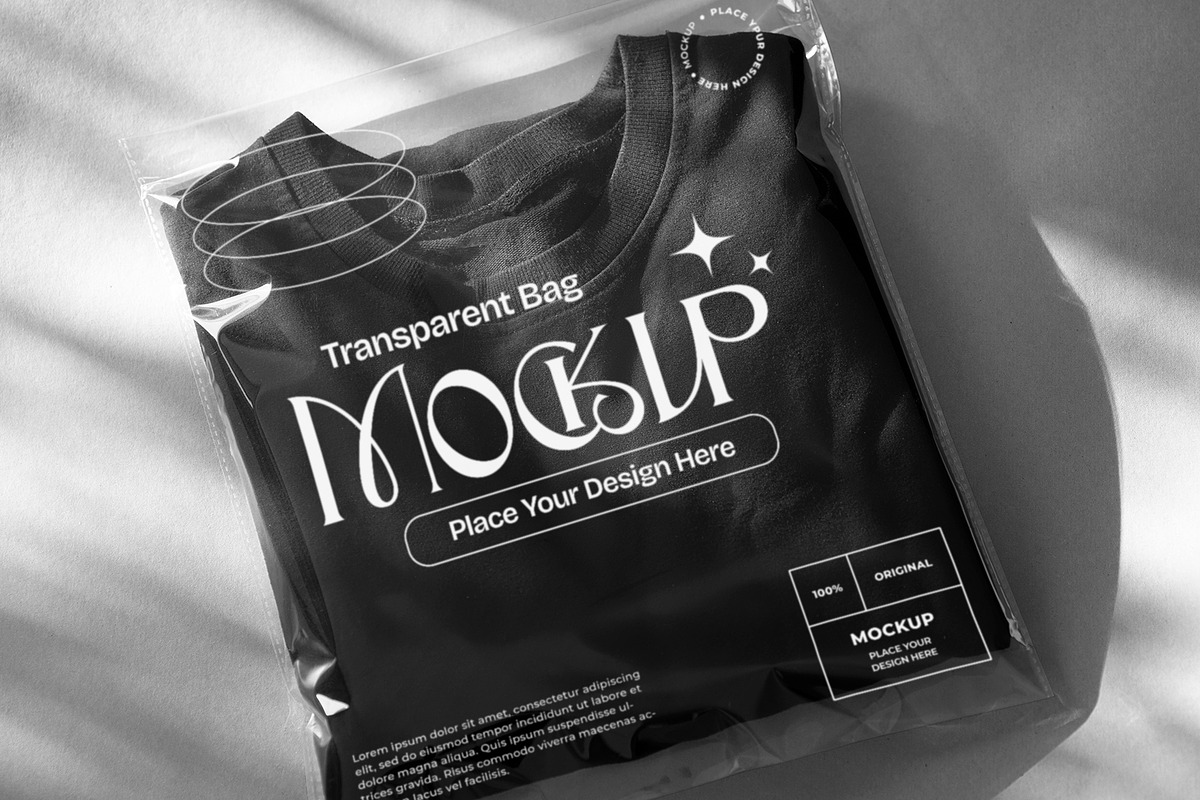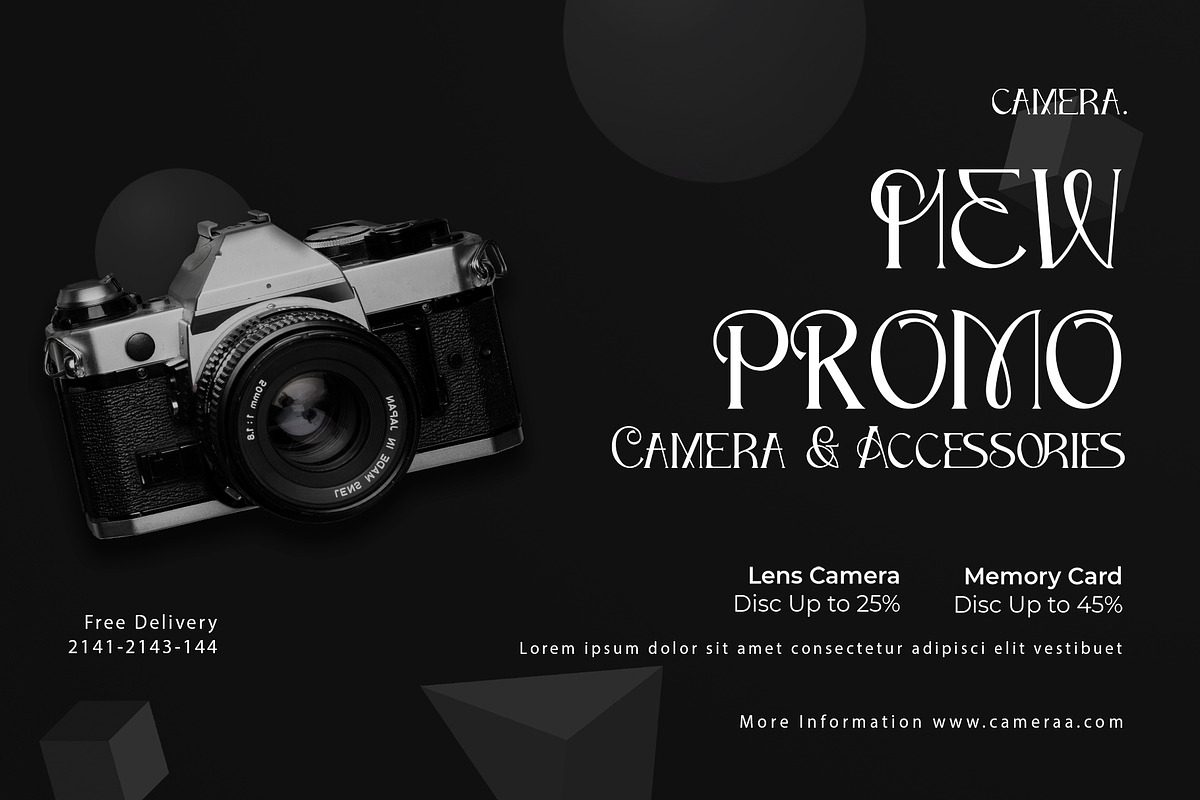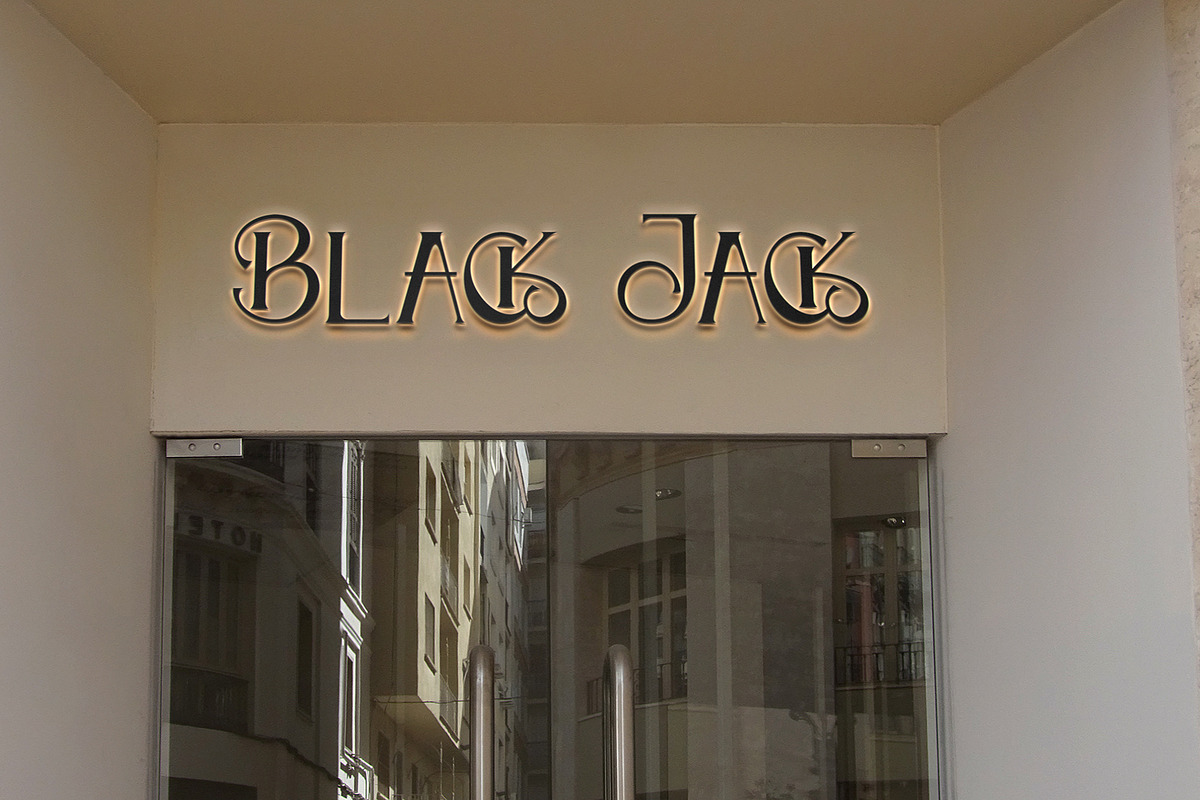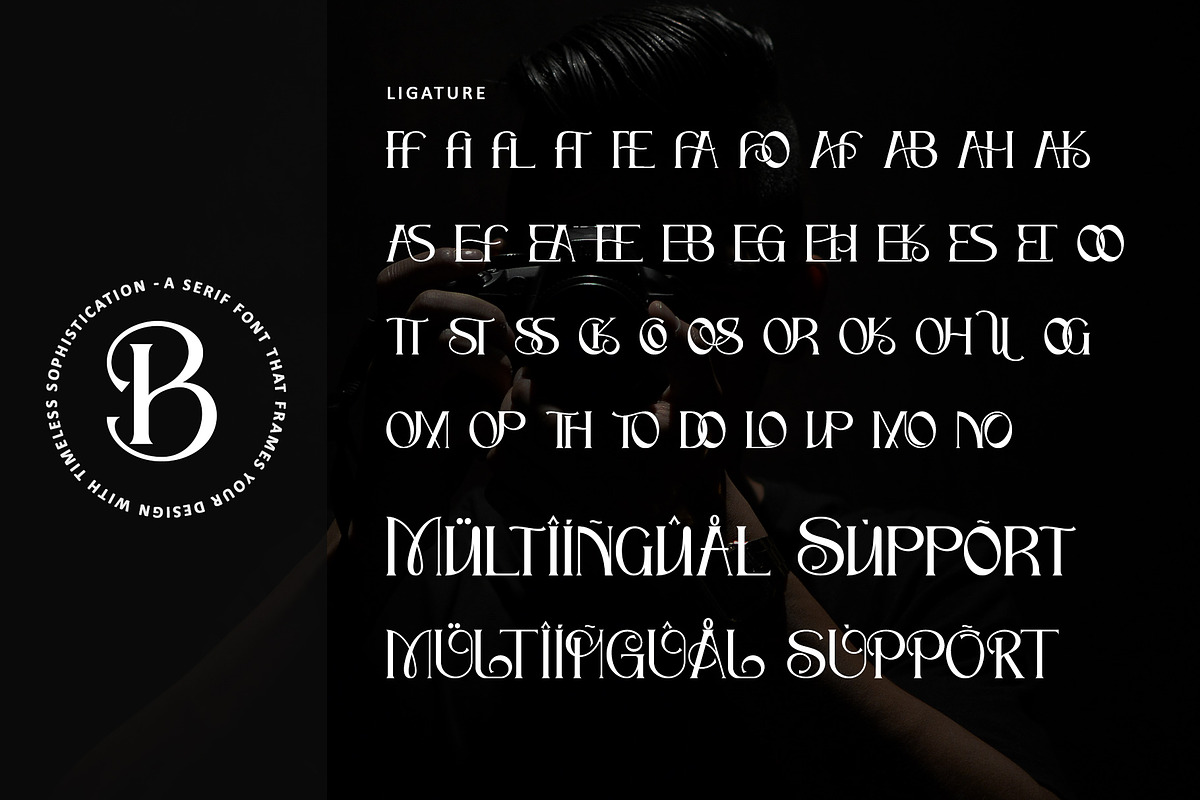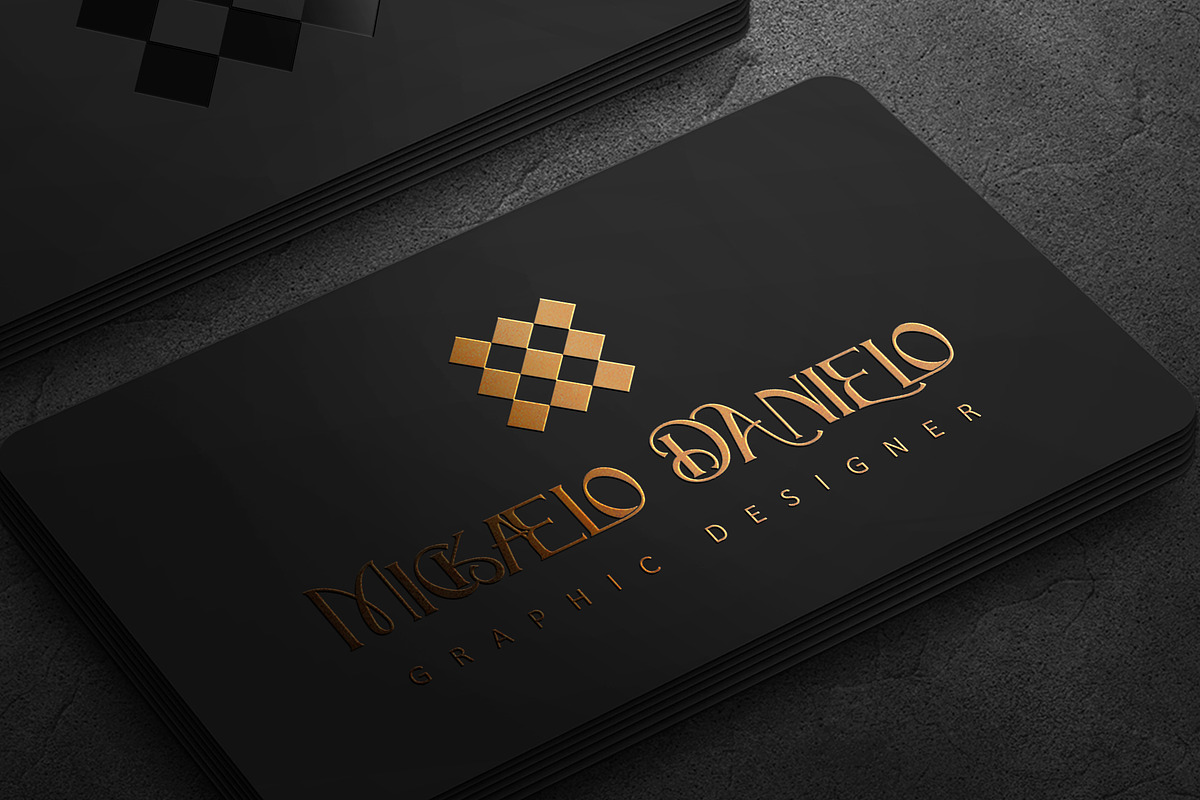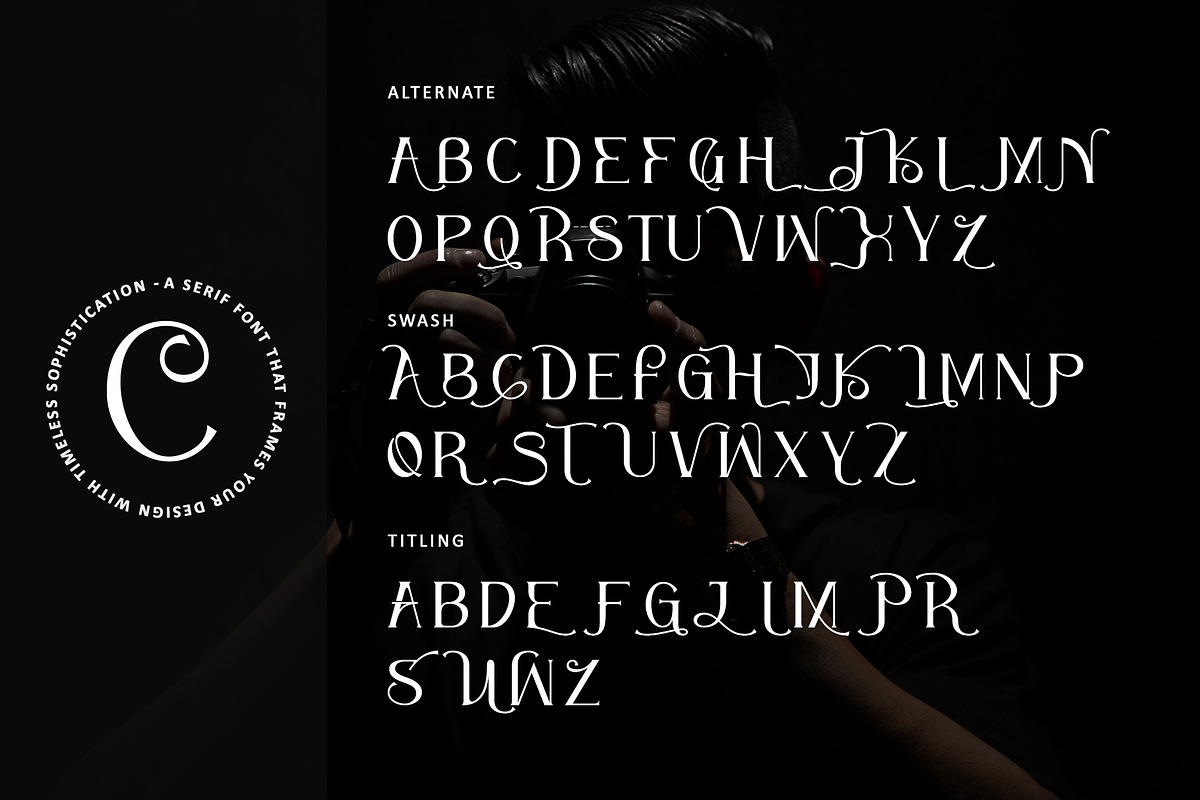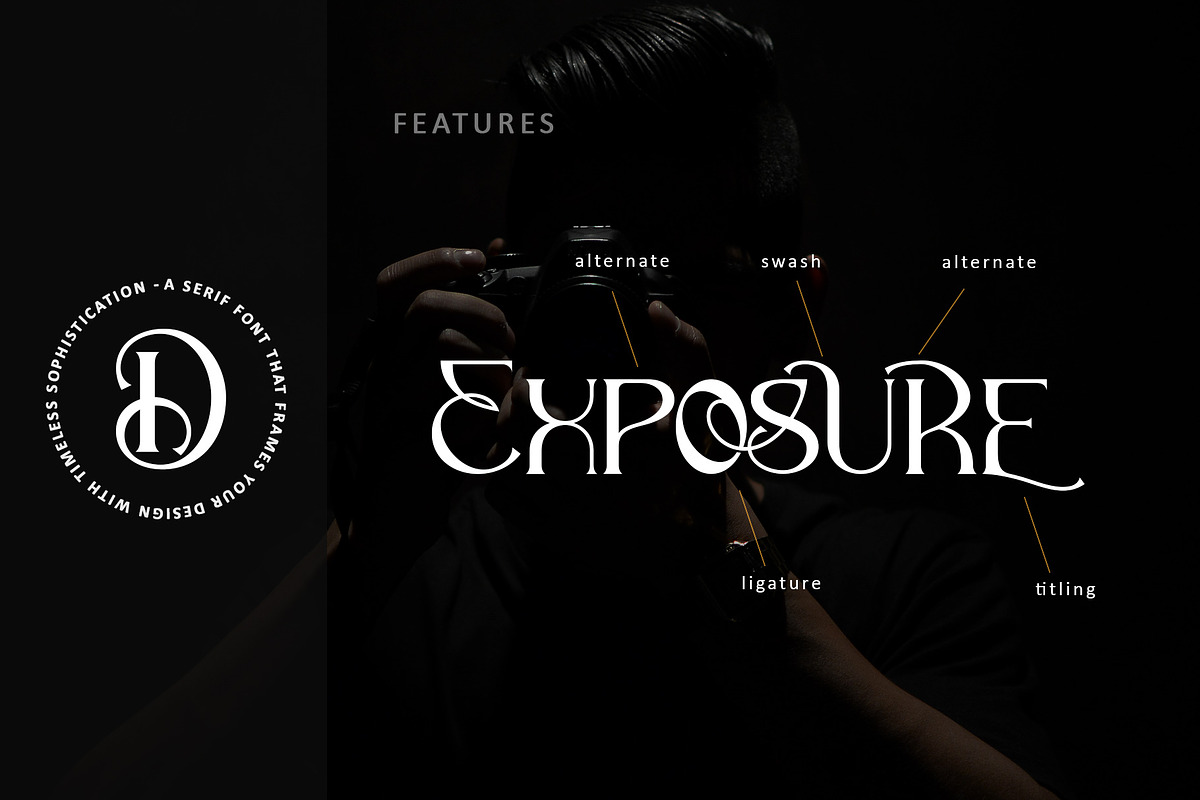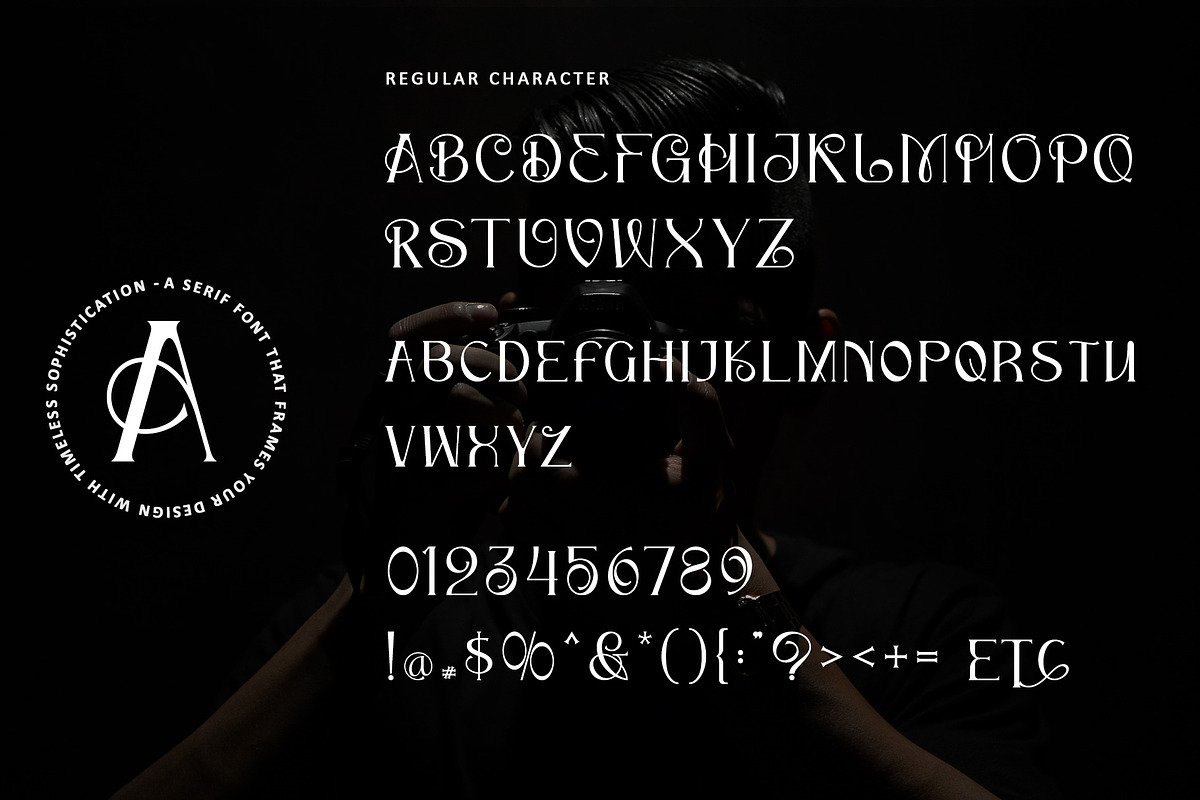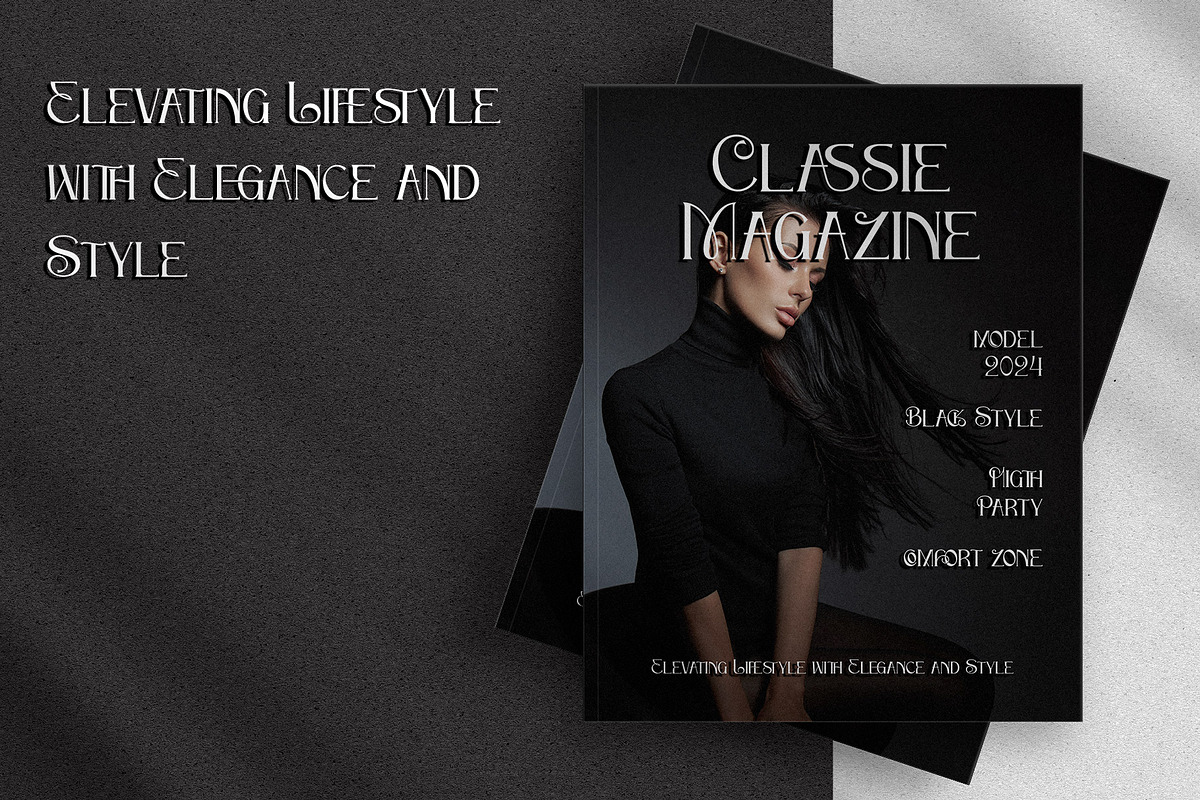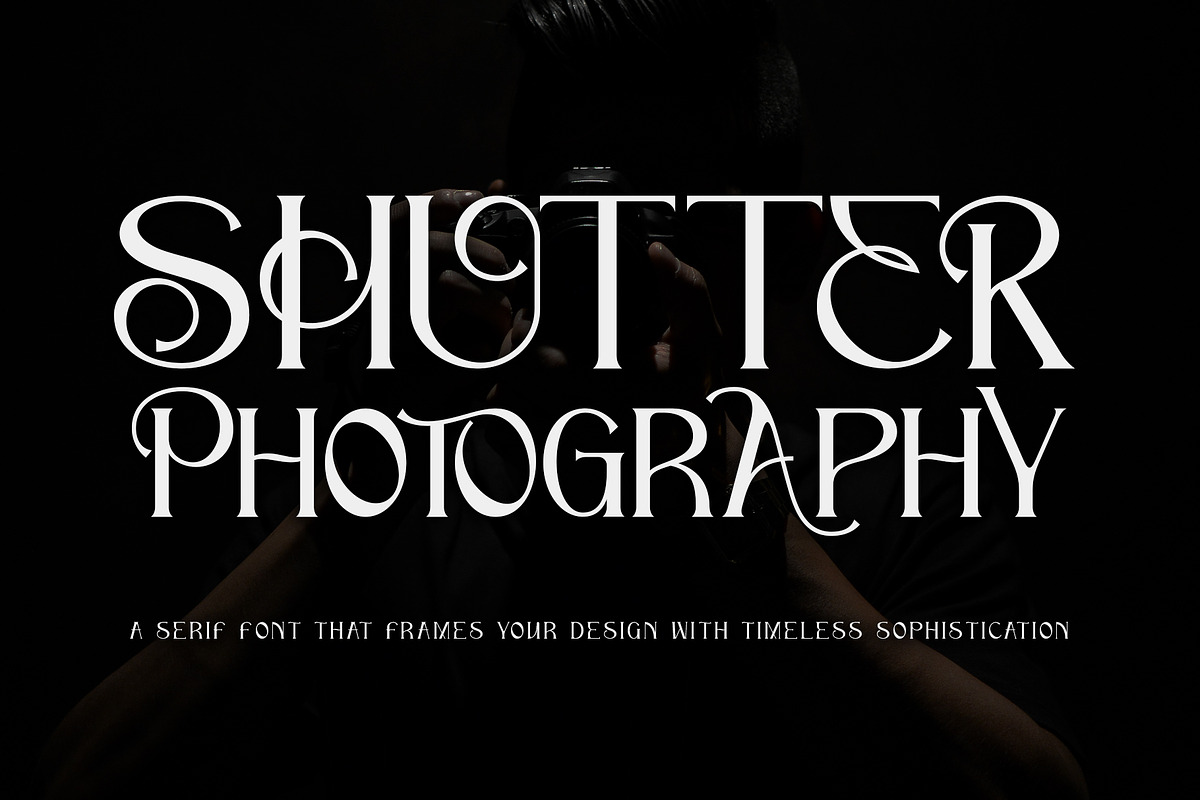
Shutter Photography
Dive into the elegance of Shutter Photography, a serif font that blends bold sophistication with unique character forms. Perfect for enhancing various design projects, from elegant product packaging to refined branding, this font's PUA encoding ensures easy access to a wide range of distinctive glyphs and swashes, promising exceptional results for your creative endeavors.
Many Features:
- Support multilingual; ä ö ü Ä Ö Ü ß ¿ ¡
- lowercase and uppercase letters
- Alternate, swash, titling & ligature